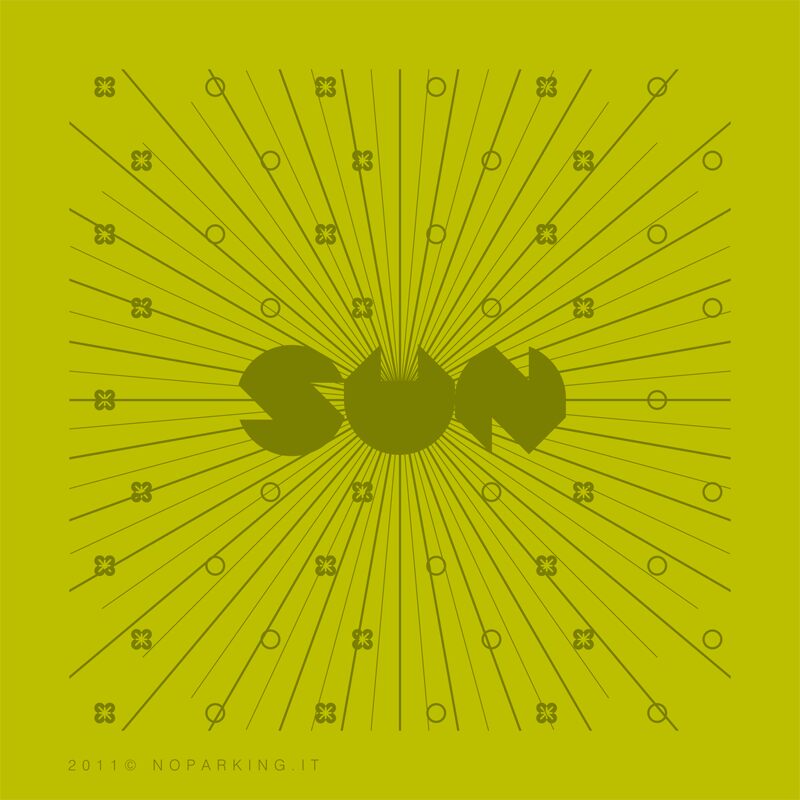
Paula by no.parking is a free non-Latin script-style display font shaped from broad, solid forms. Its near-circular bodies meet sharp notches, pointed joins, and narrow cutouts in a compact run of broad, dramatic geometric silhouettes.
The emblematic construction gives experimental music posters and fashion branding a coded futuristic edge, yet the clean geometry also suits game graphics and speculative-fiction packaging. It is most convincing as the central lettering on a poster.